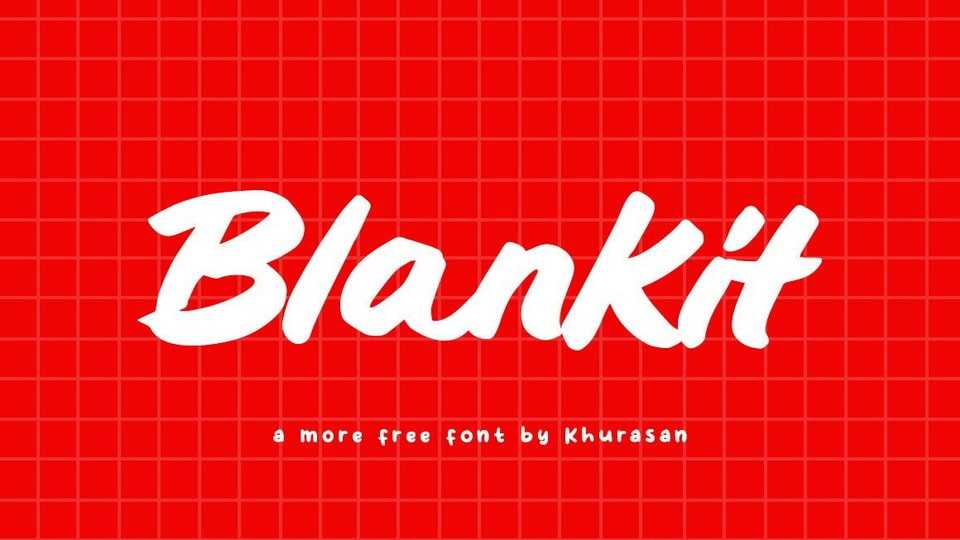
Download Blankit font, a simple and natural handwritten typeface. Blankit is perfect for posters, logos, magazines, book covers, banners, and many more.